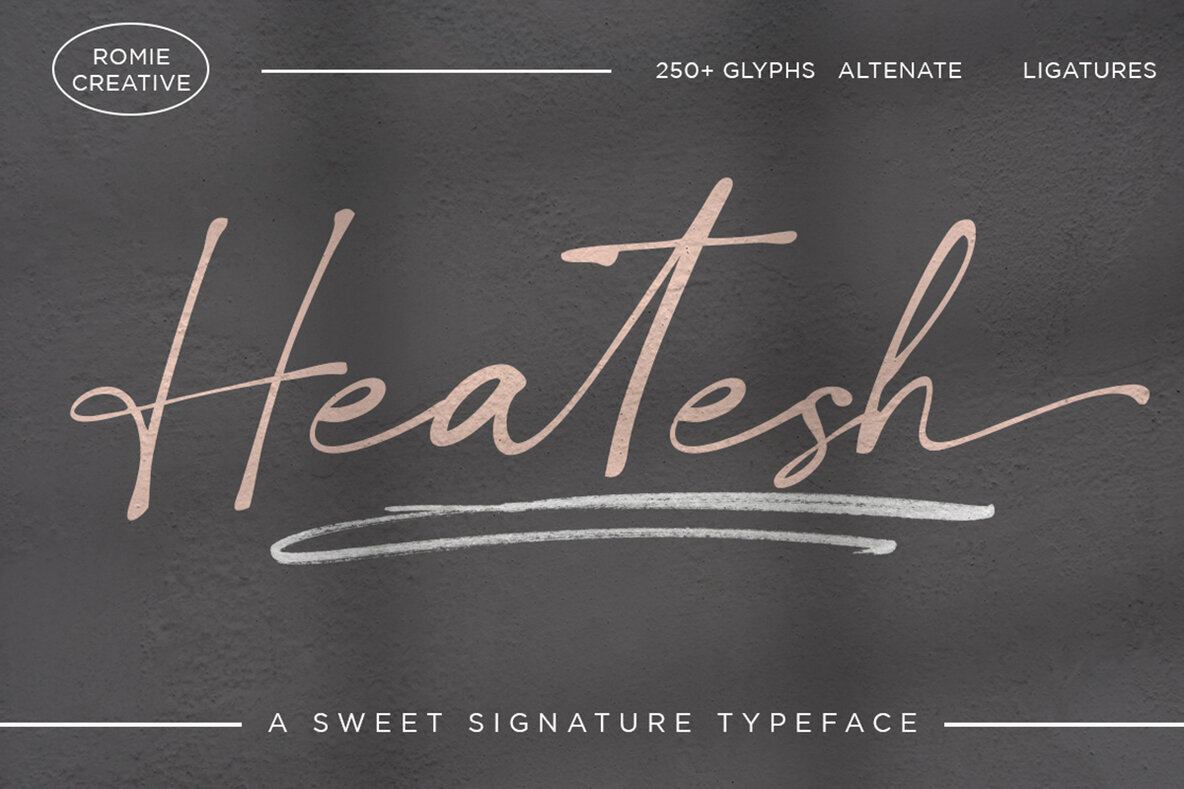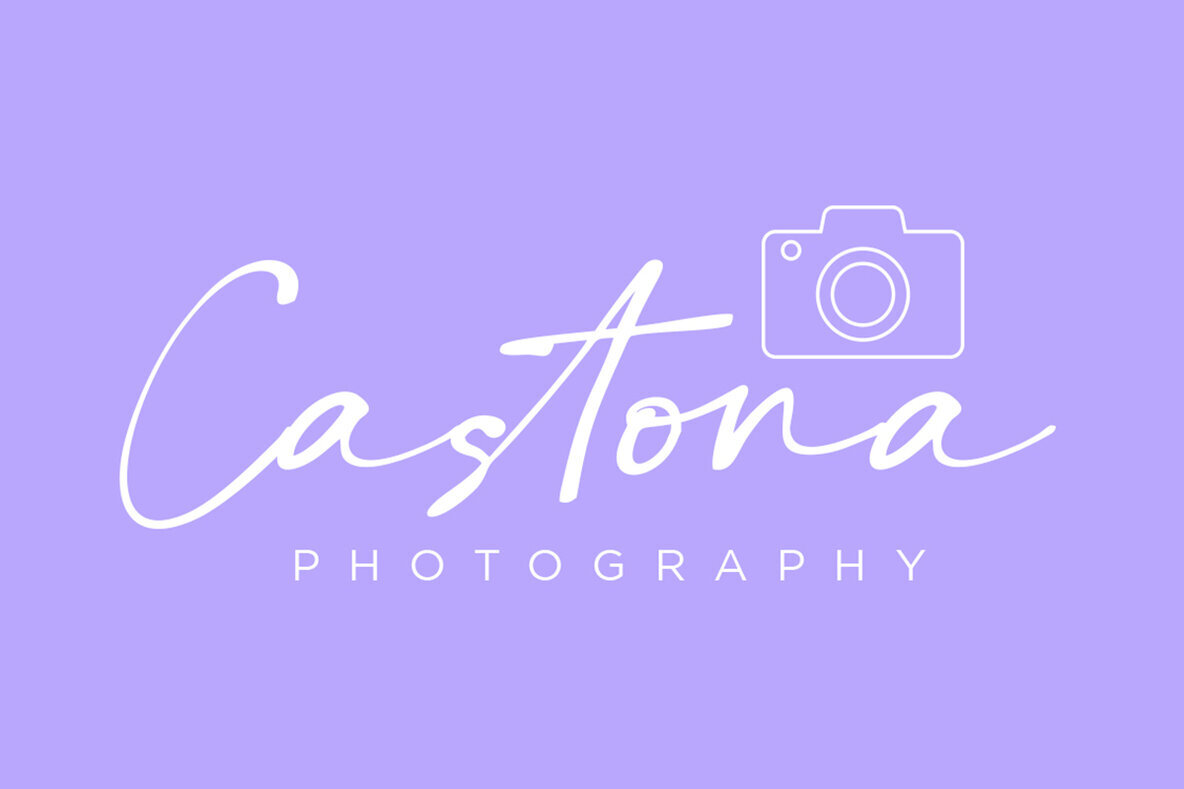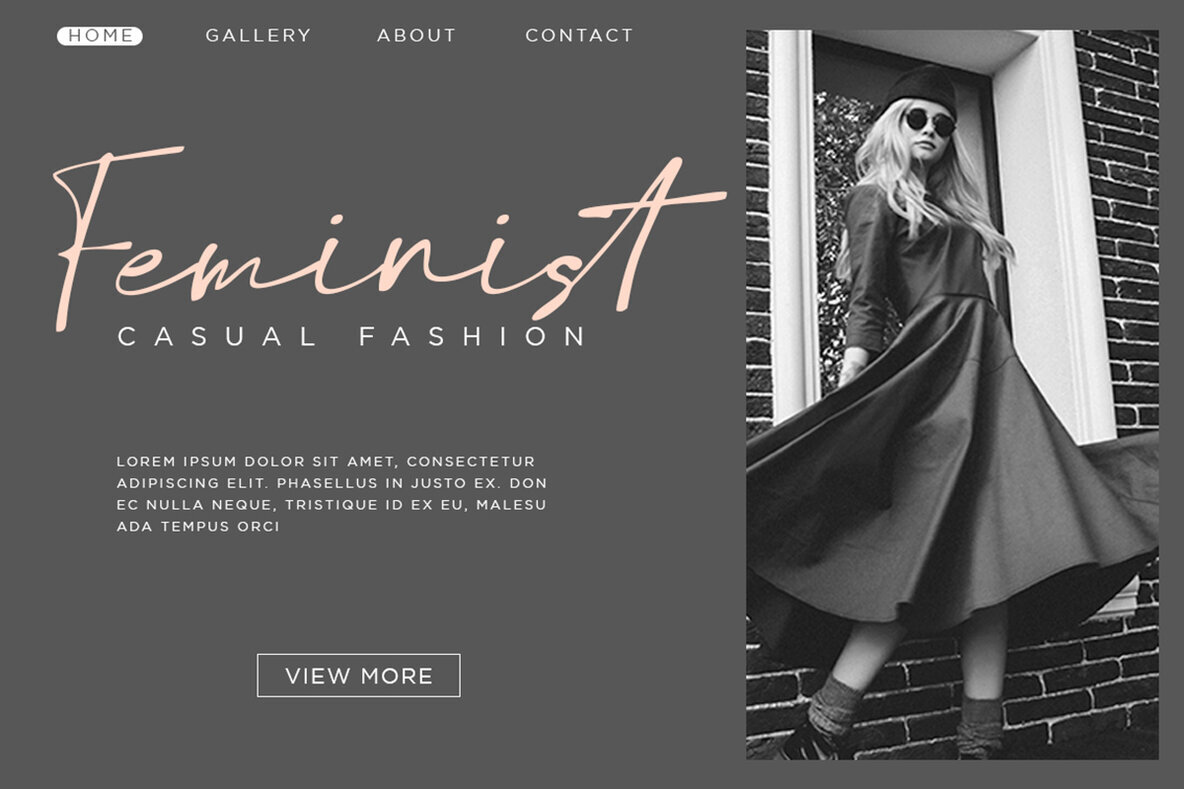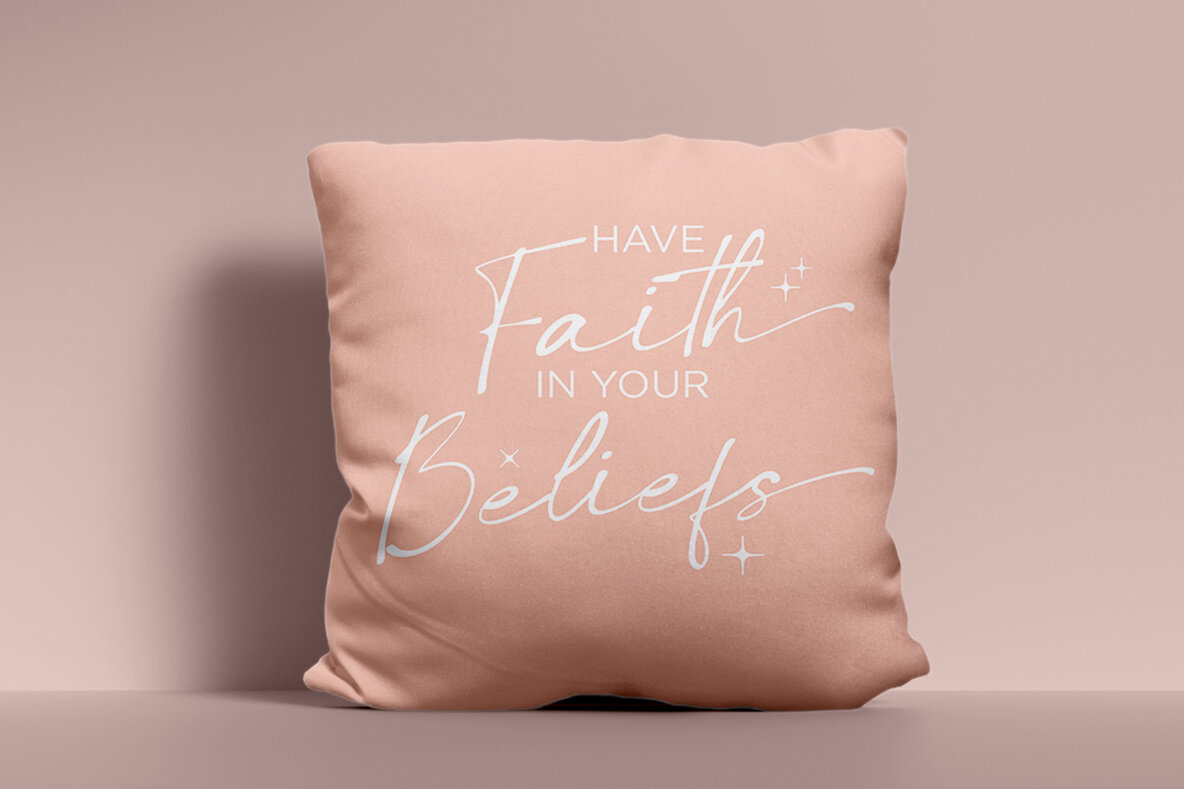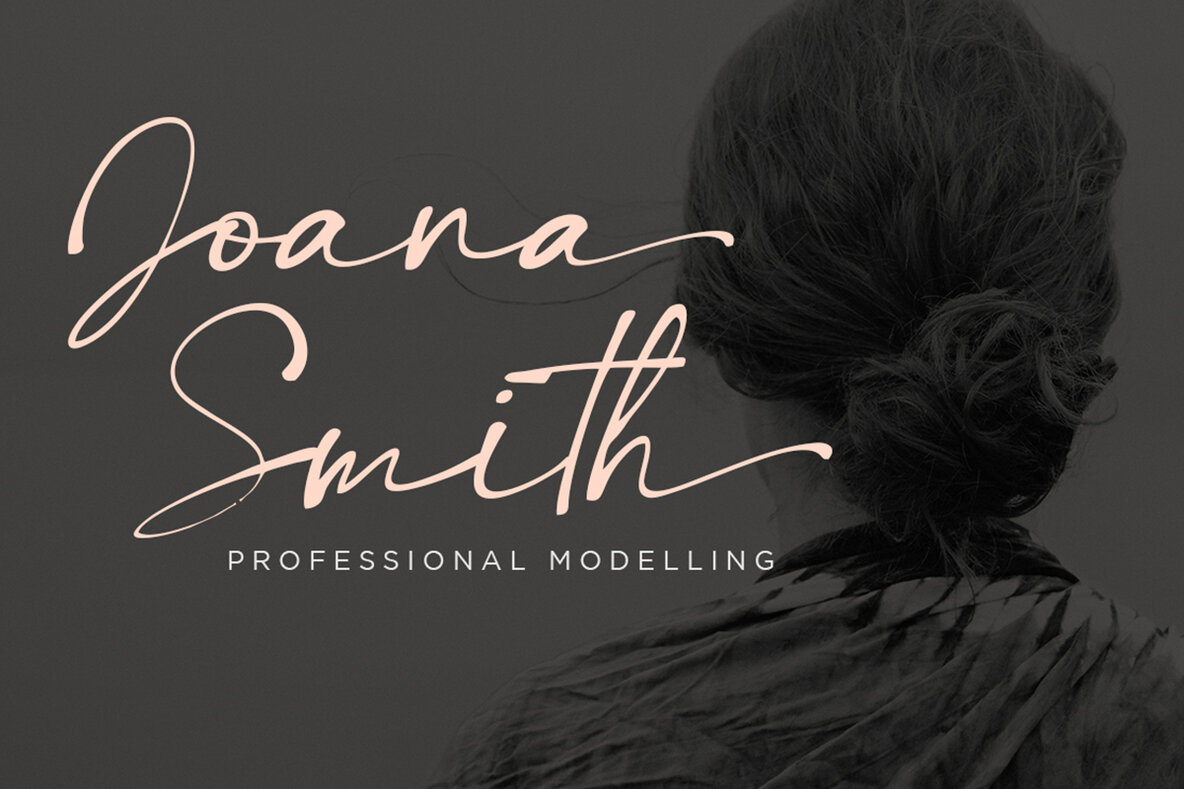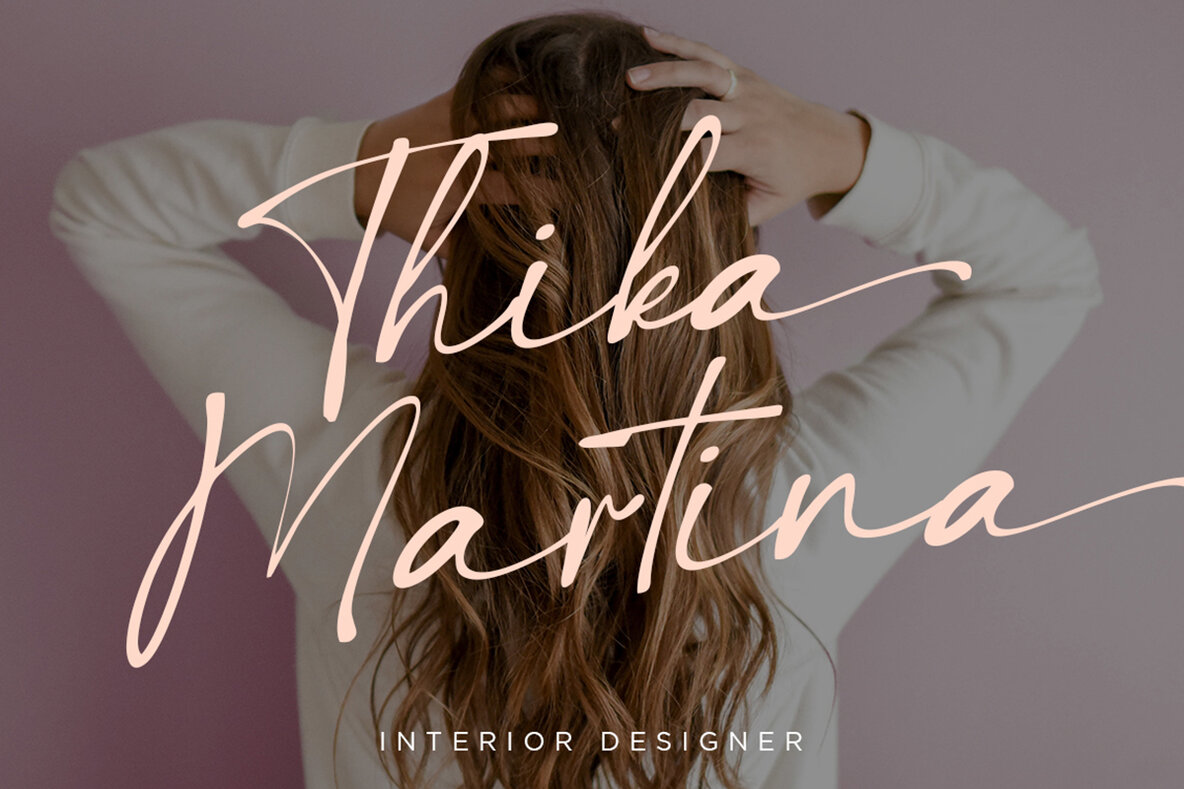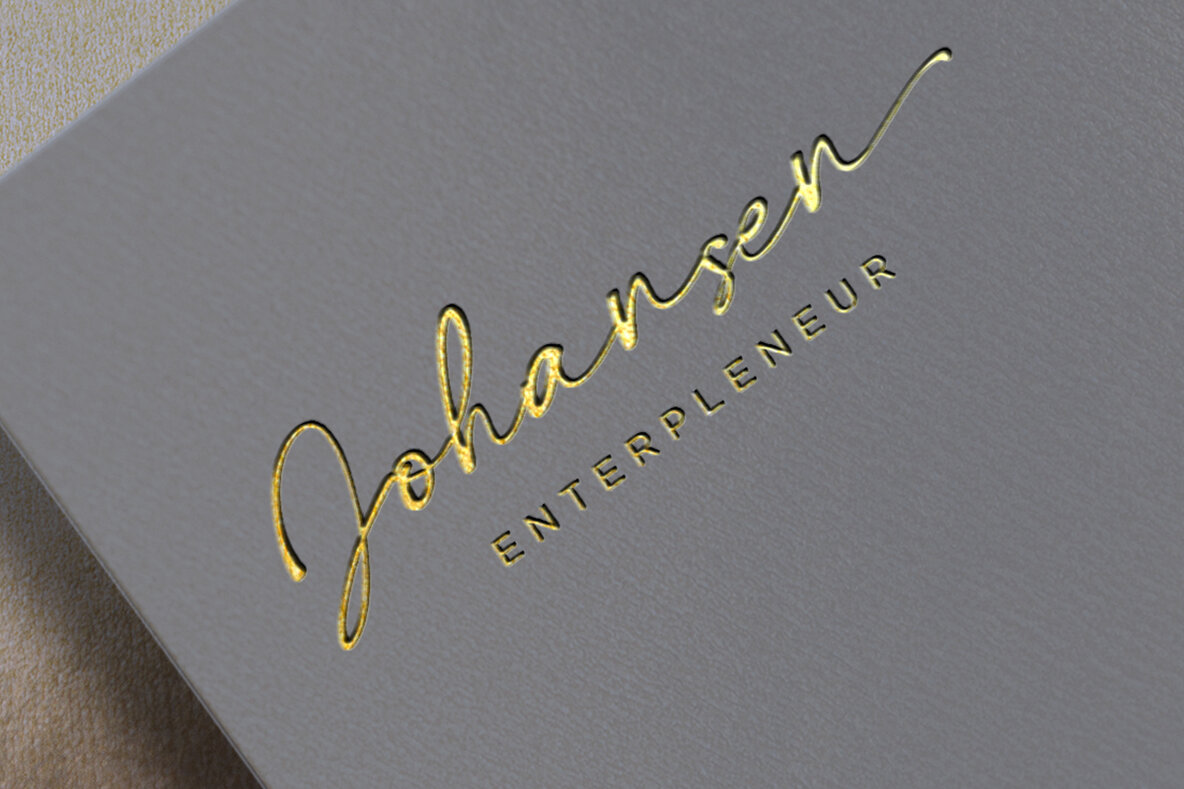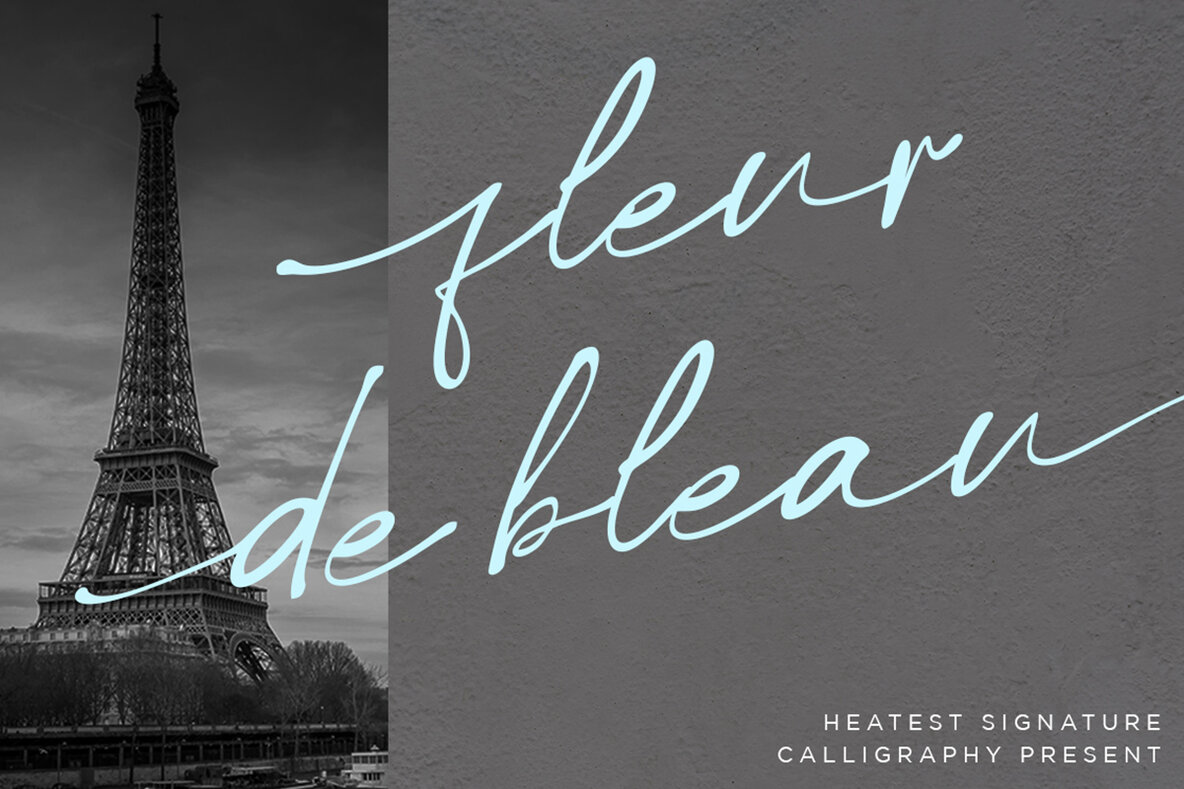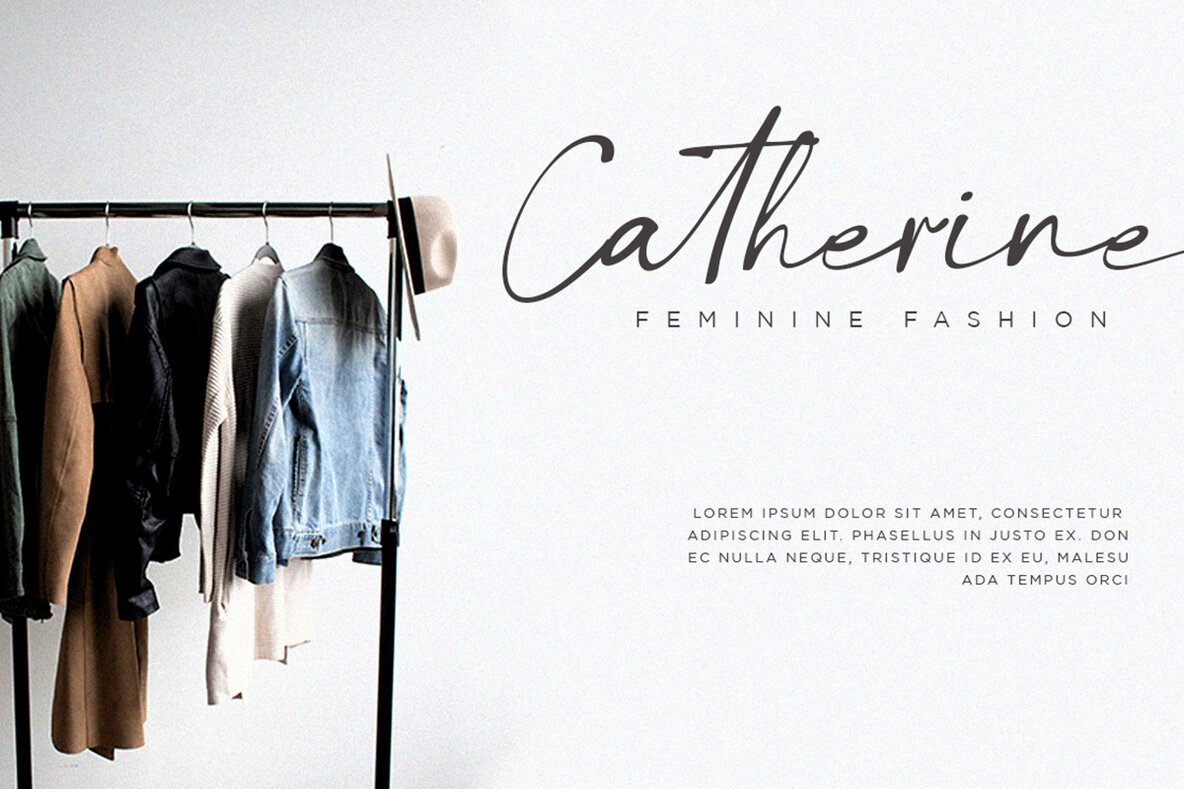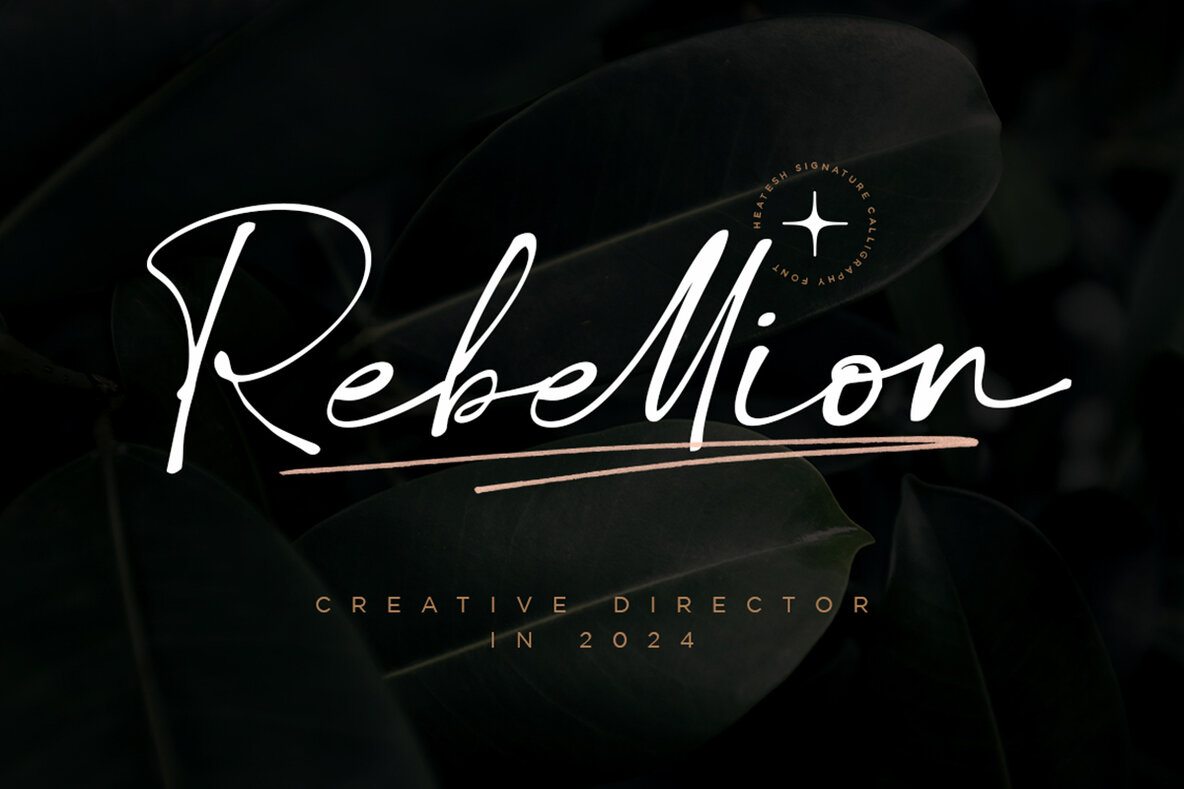
Heatesh Font
Heatesh Regular
Heatesh presents itself as a chic modern calligraphy font designed to elevate your creative projects with its enchanting yet sophisticated flair. Perfectly suited for signature logos, watermarks for photography studios, and wedding invitations, its versatility shines particularly in initial signatures and brand logos. Features:Heatesh: A Modern Calligraphy Typeface
Heatesh is lovingly crafted to add a unique touch to your design work.